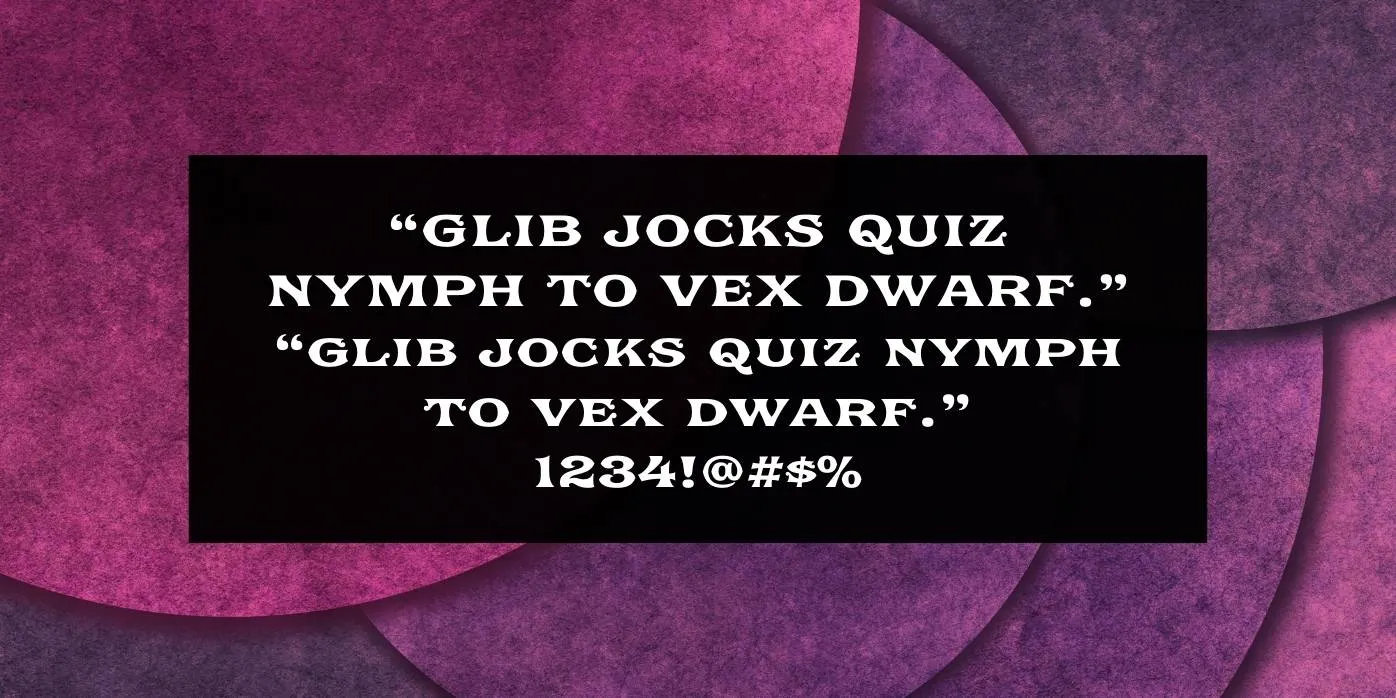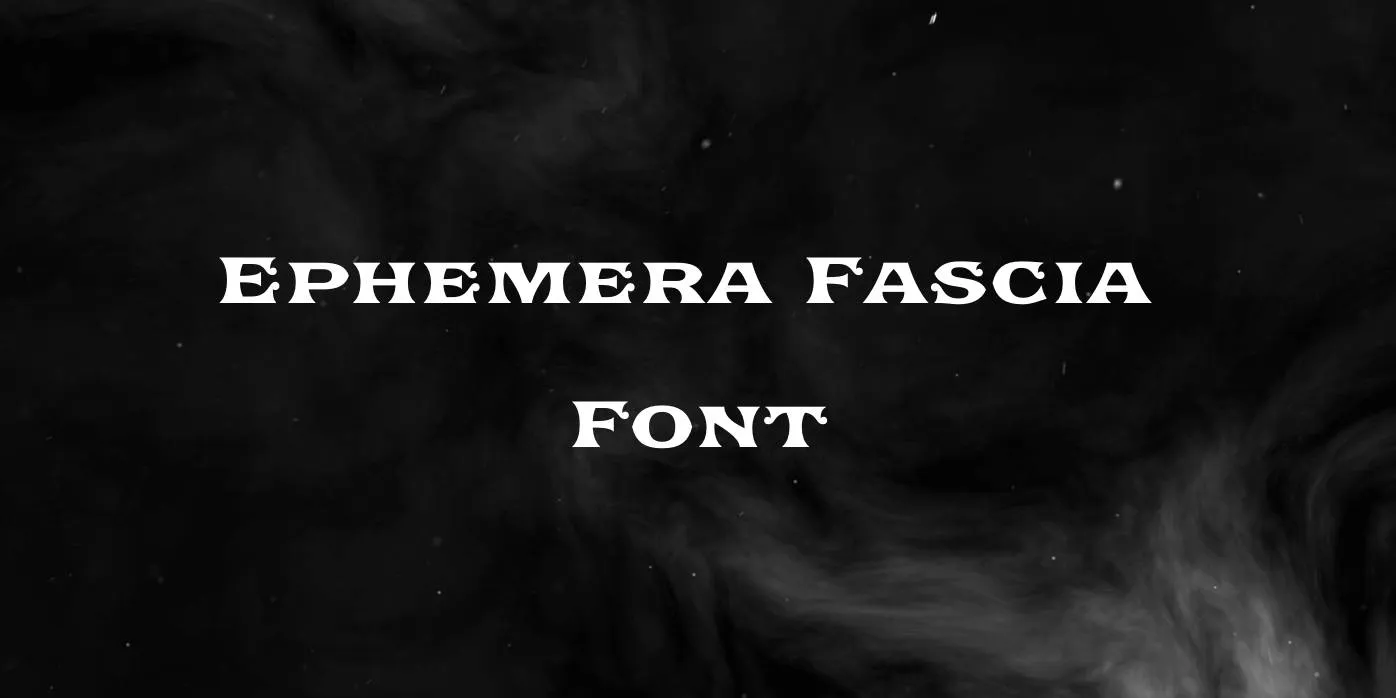
Ephemera Fascia Font
Ephemera Fascia Font is a fancy typeface designed by Jonathan Hoefler and Tobias Frere-Jones. The font is based on the ephemeral newspaper headlines that were popular in the United States during the late 19th and early 20th centuries. The Font was released in 2001 and has since been used by various publications, including The New York Times, Newsweek, and The Wall Street Journal. You can give your designs a marvelous touch then try to pair windsong font and make your designs astonishing.
The Font has a unique design that makes it stand out among other typefaces. The most notable feature of the font is its small size; the letters are only slightly larger than the body text of the average newspaper. This makes the font very legible, even in small sizes.